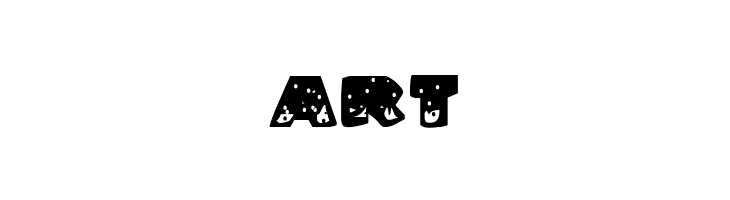
A bold, industrial font with a distressed, textured style.
A bold, playful font with a splashy, textured design.
A bold, playful font with a textured, ocean-inspired design.
A bold, italicized display font with a distressed, textured appearance.
A bold, grunge-style font with a distressed texture and dynamic appearance.
A bold, textured font with a playful, distressed style.
A distressed, textured font with a vintage, industrial feel.